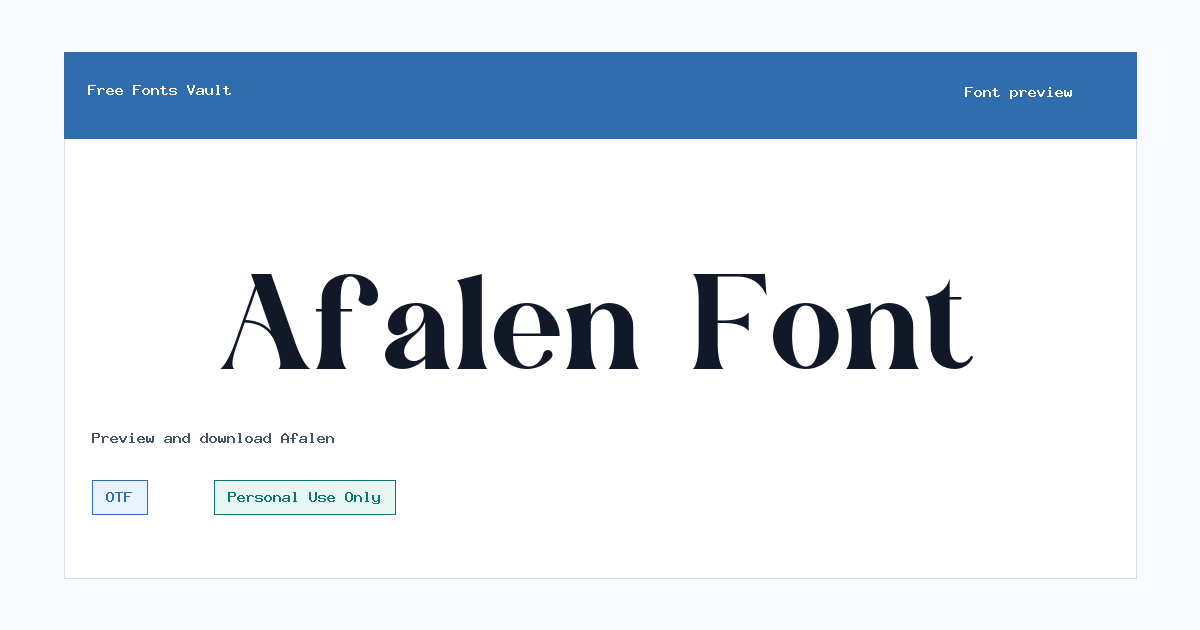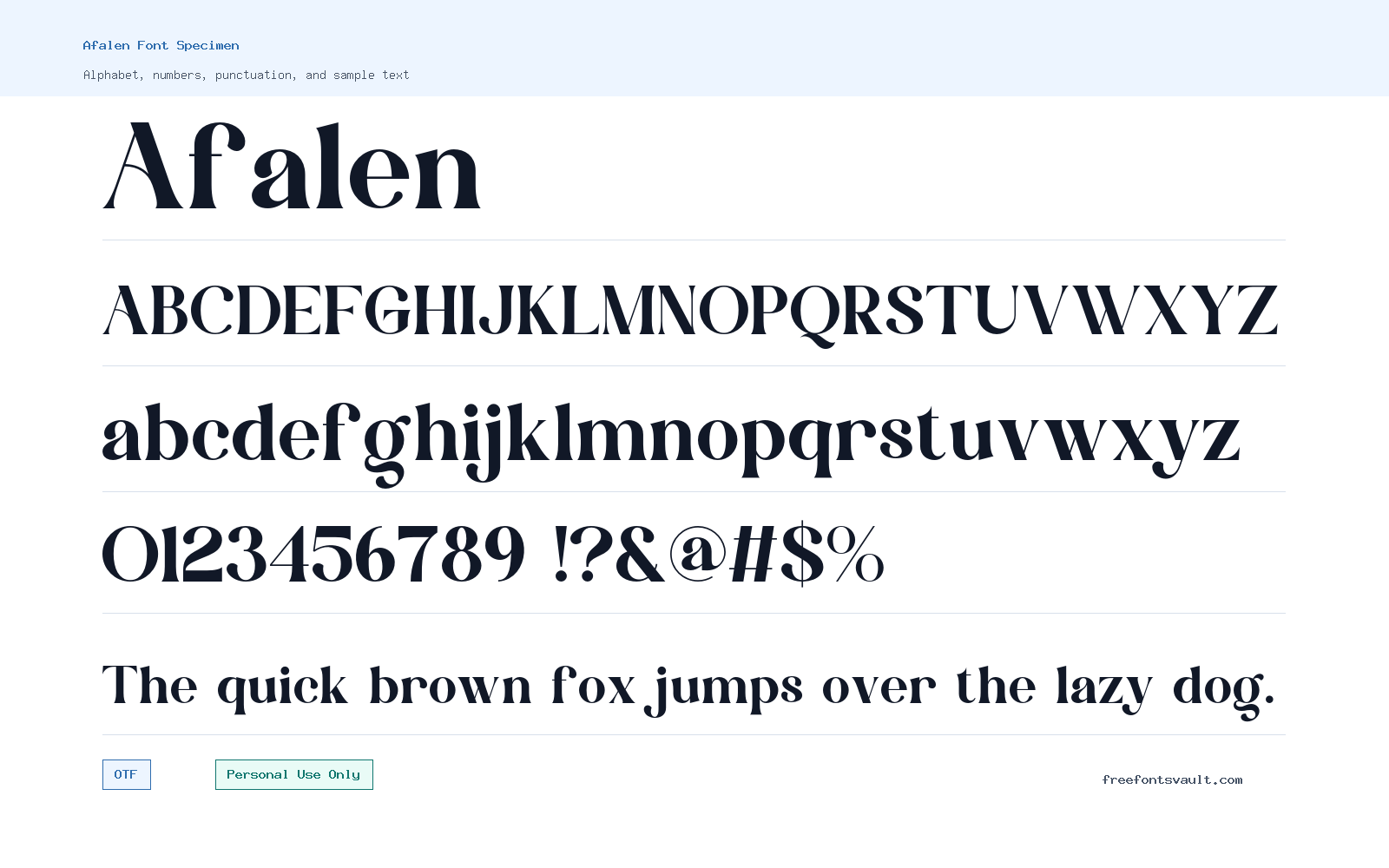
Afalen
- Designer ErmediaStudio
Afalen font.
Afalen is a serif font family with a regular OTF style, made for visitors who want to test clean, display-friendly text before downloading. It is licensed for personal use only, so keep it to non-commercial projects unless you obtain broader permission from the rights holder.
About Afalen
Afalen works best when you use the preview box to test the exact words you plan to design with. Because the available file is a regular-weight serif, start with short titles, names, invitations, social graphics, quote layouts, and decorative headings. Try both uppercase and lowercase text, then check how the spacing feels in the words that matter most to your project.
For longer writing, test carefully before using Afalen as body text. Many serif display fonts look strongest in a title or short phrase but can become harder to read in dense paragraphs, small captions, or crowded mobile layouts. If your design needs supporting text, pair Afalen with a simple sans serif or a quiet text serif so the headline remains the focus. Avoid pairing it with another highly decorative font unless you are building a very short typographic composition.
- Serif family suitable for previewing short display text
- Personal invitations, cards, quote graphics, and social posts
- Headings, names, labels, and other short text treatments
Designer: ErmediaStudio.
What is Afalen best used for?
Use it for short personal-use designs such as headings, names, invitations, quote graphics, and social media text. Test longer paragraphs first, because a display serif may not be ideal for dense reading.
Who designed Afalen?
Afalen is credited to ErmediaStudio.
Also compare the preview against nearby fonts on your shortlist so Afalen feels intentional, not just decorative.